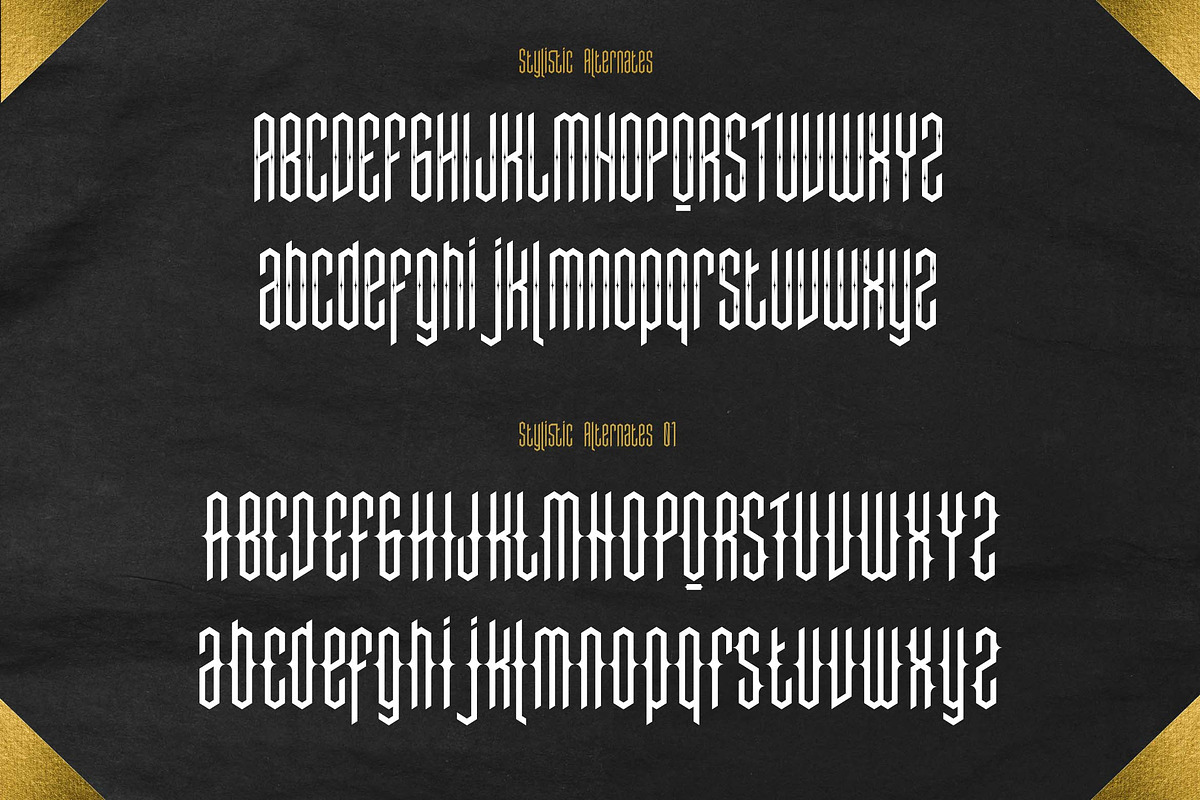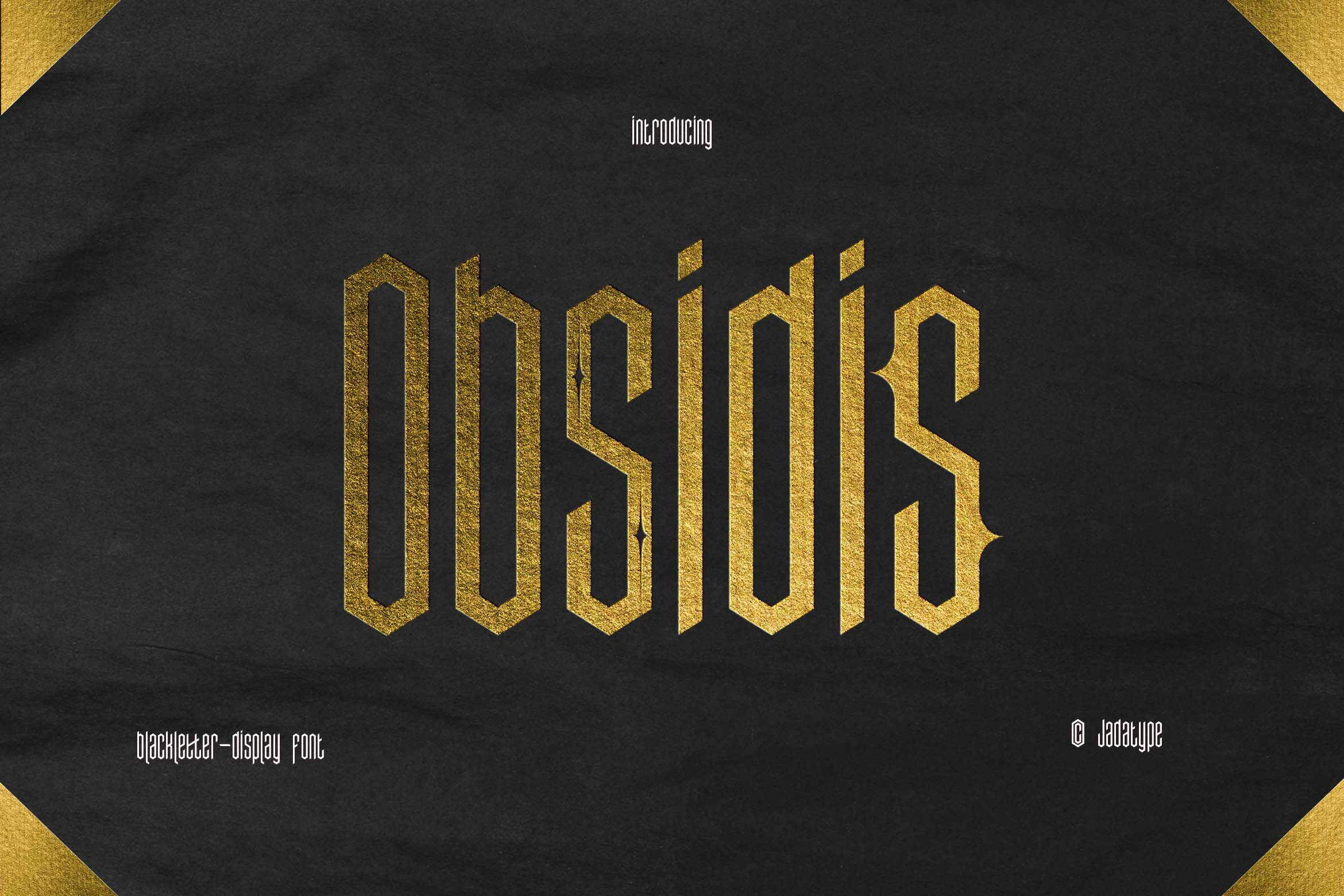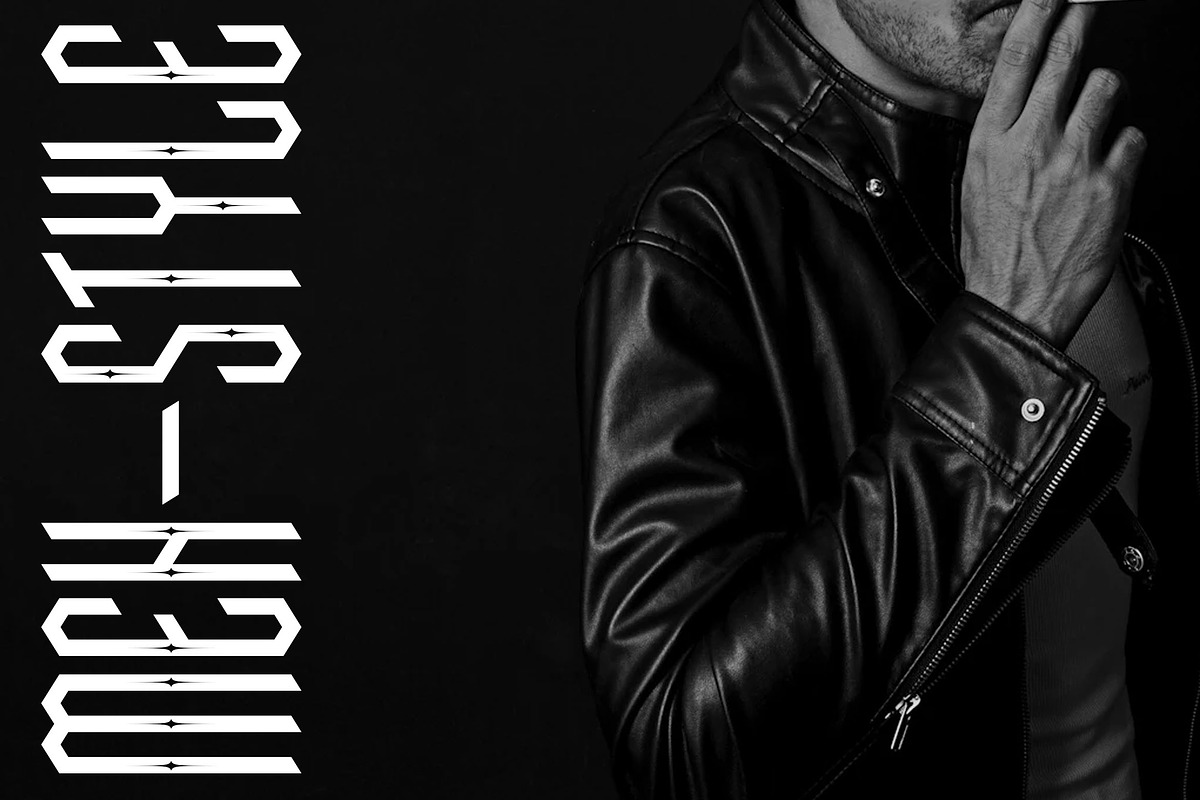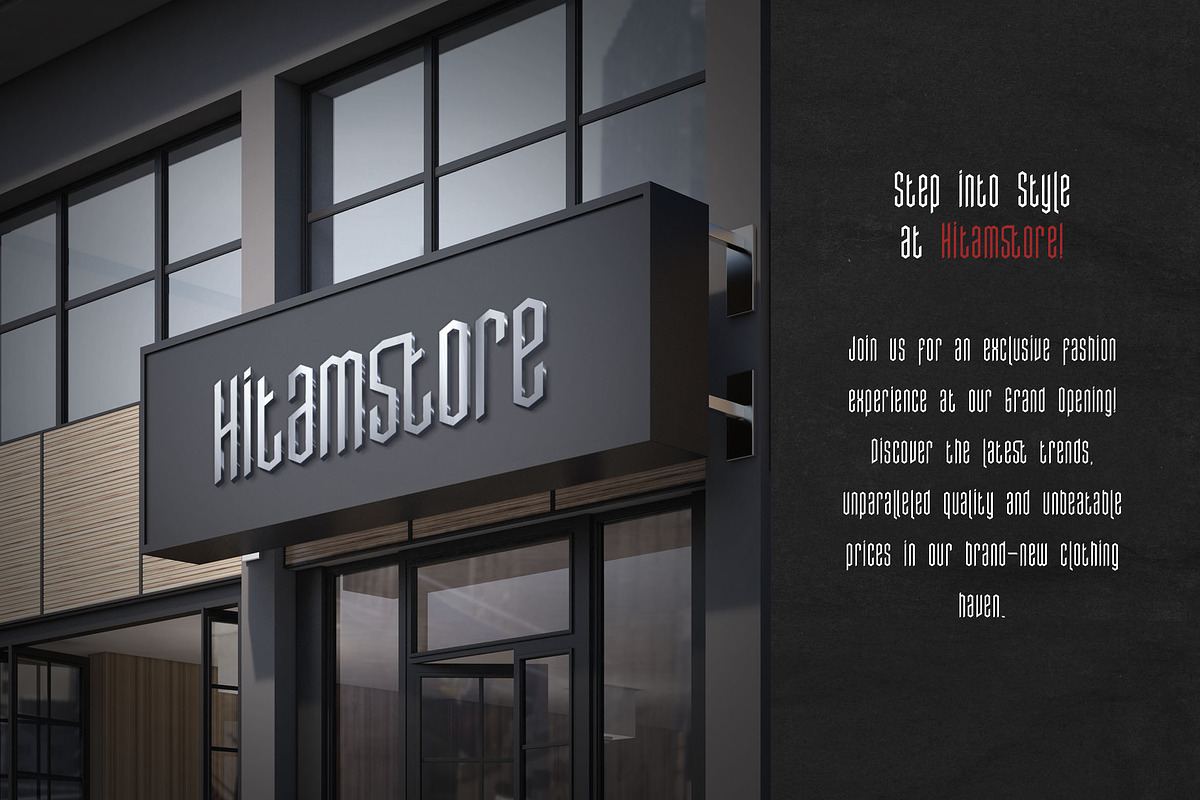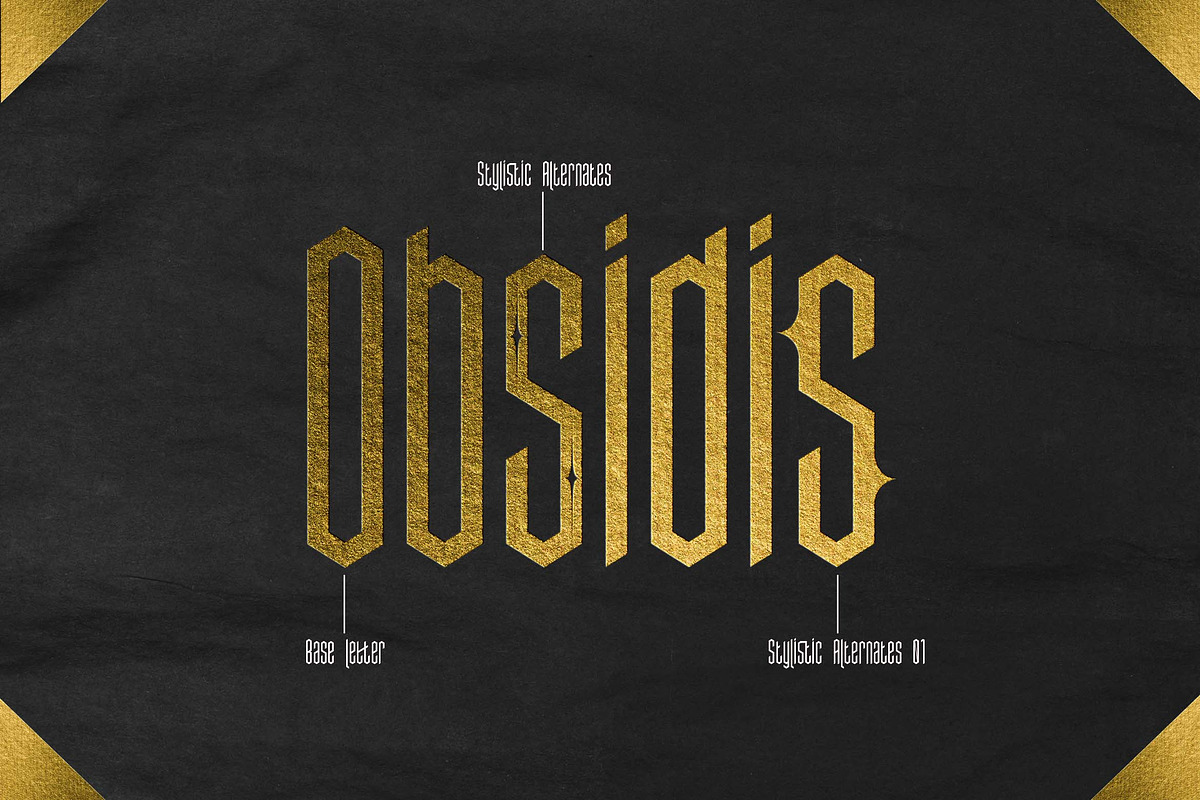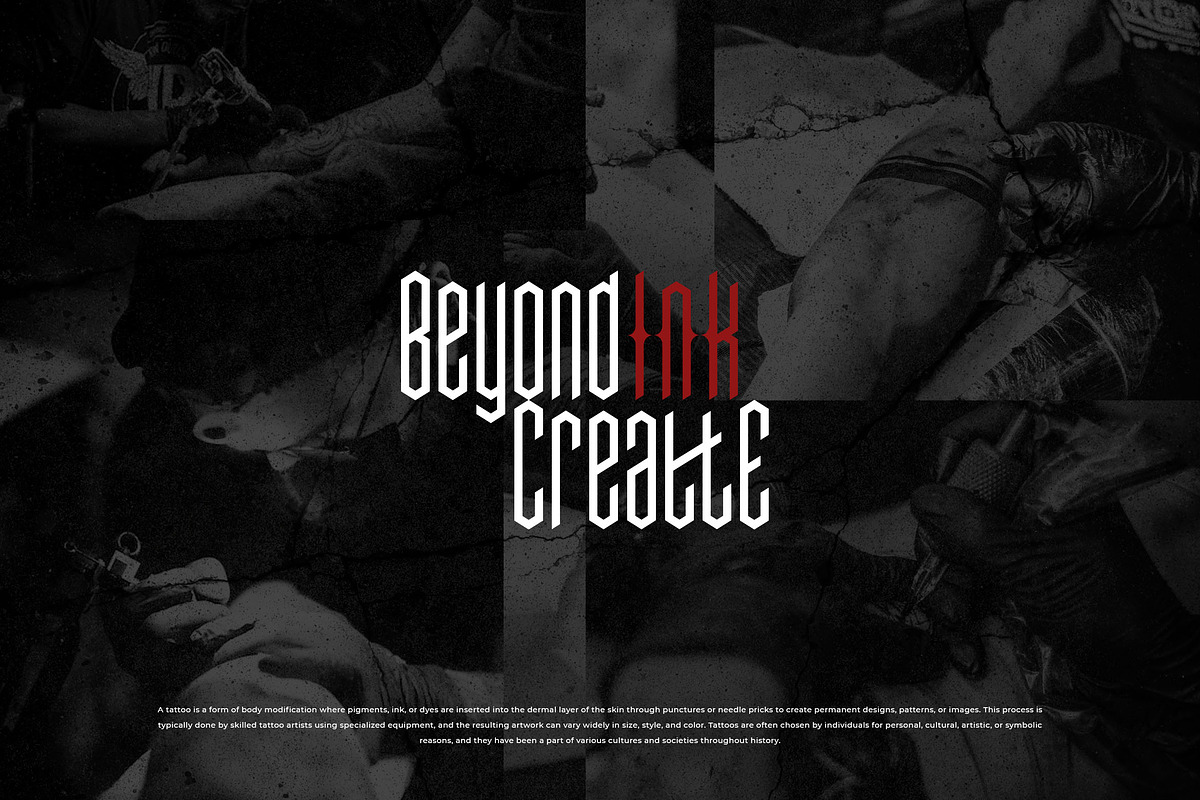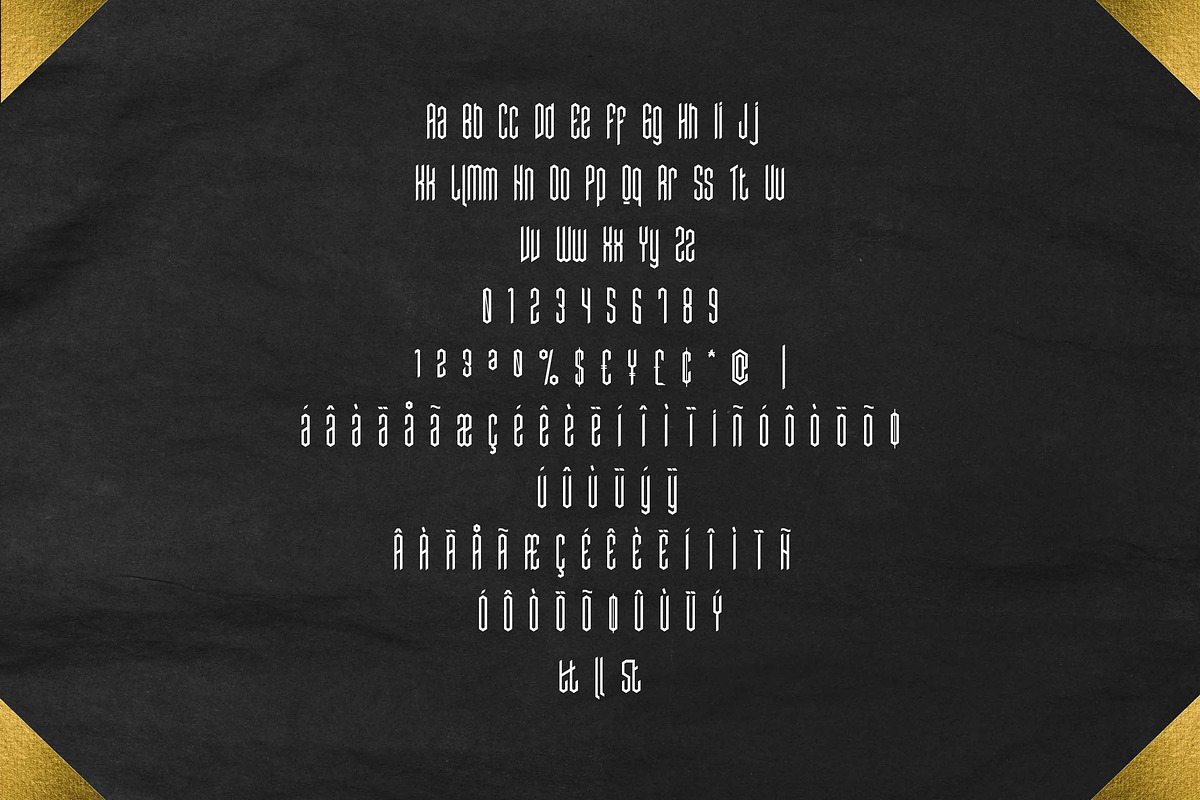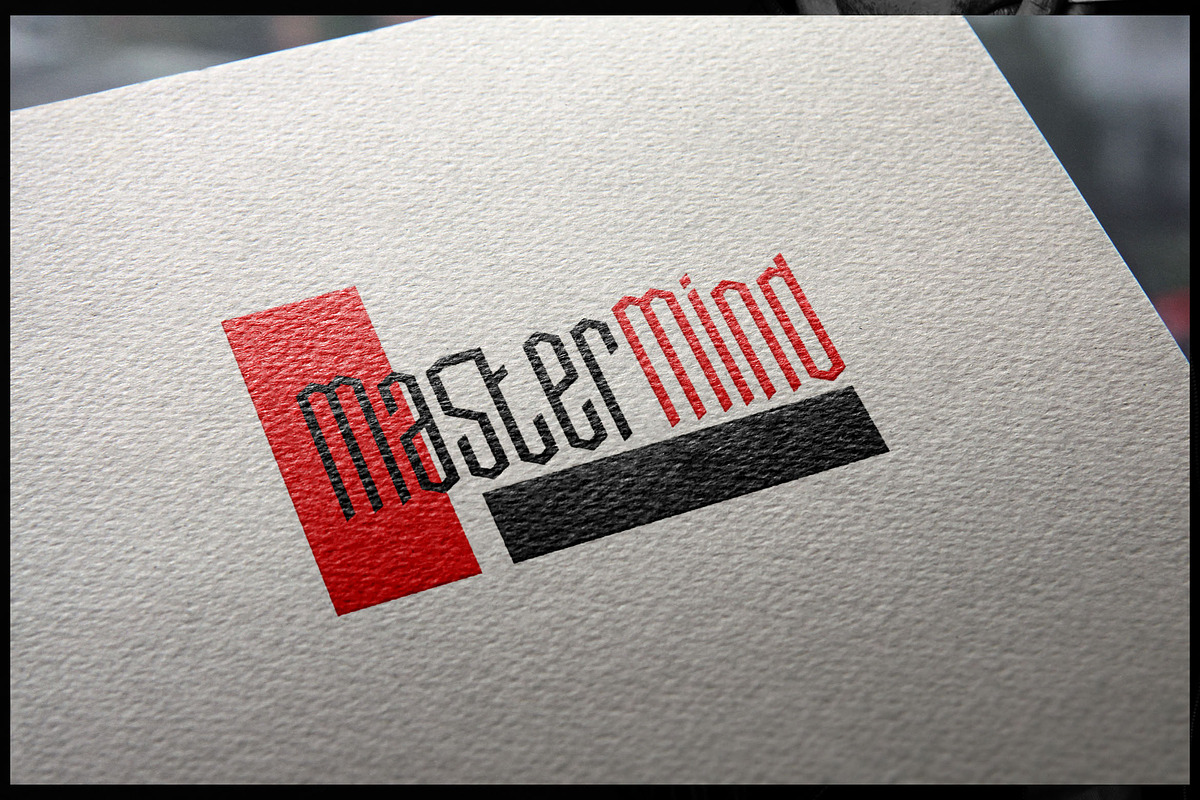
Obsidis Font | Simple Blackletter
Obsidis is a display font that comes with a Blackletter Style. suitable for product, Branding, social media, logotype and so on. contains standard English letters, numbers, punctuation, and several accents that support multilingualism.